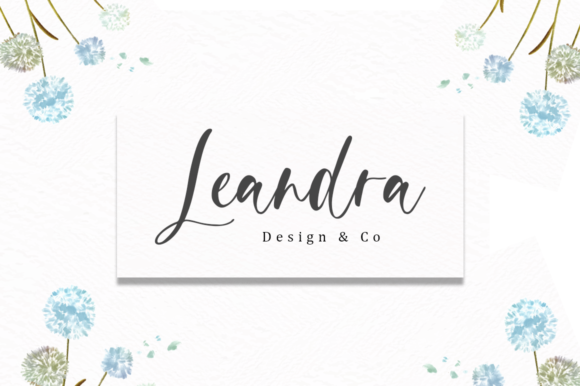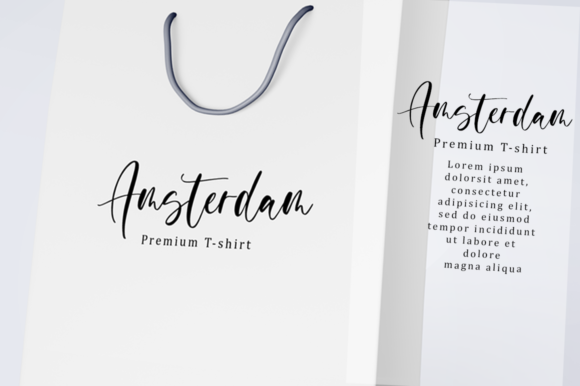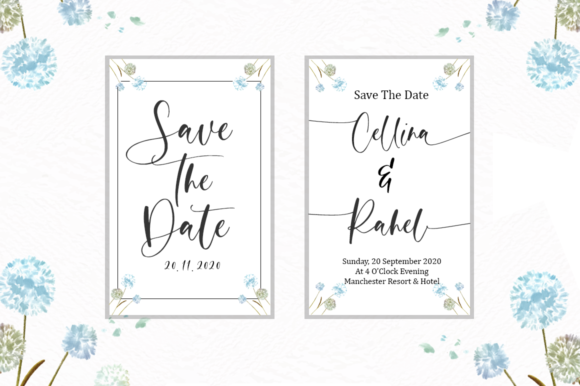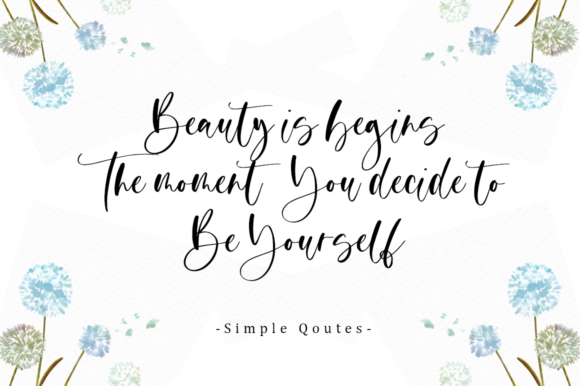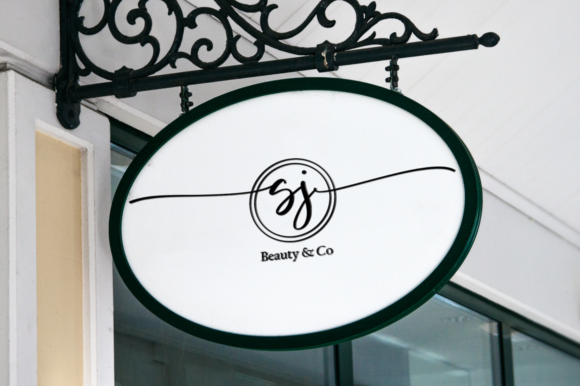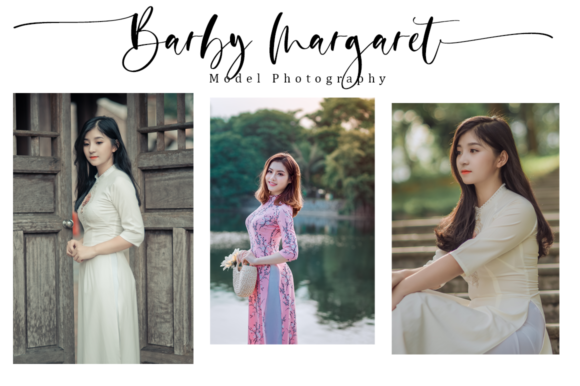
Introduction to Pashmina Font
Pashmina is an incredibly distinct, delicate and timeless handwritten font.
It looks stunning on wedding invitations, thank you cards, quotes, greeting cards, logos, business cards and every other design which needs a handwritten touch This font is PUA encoded which means you can access all of the glyphs and swashes with ease.